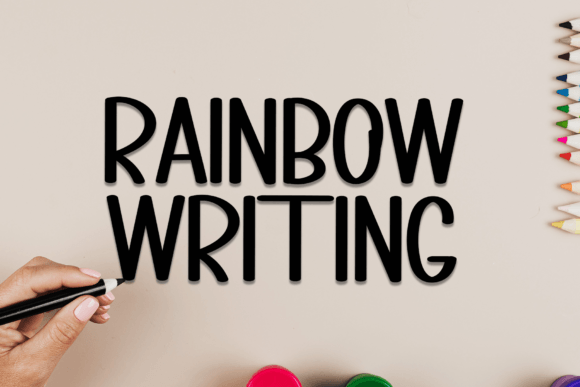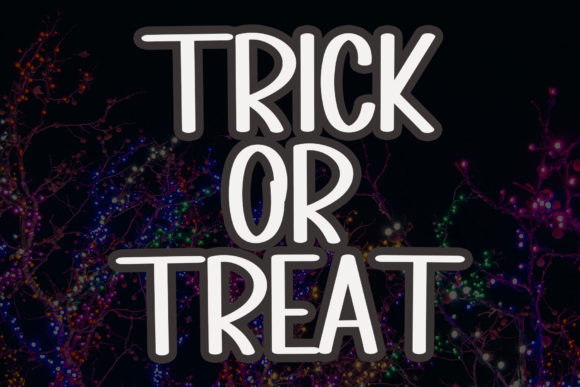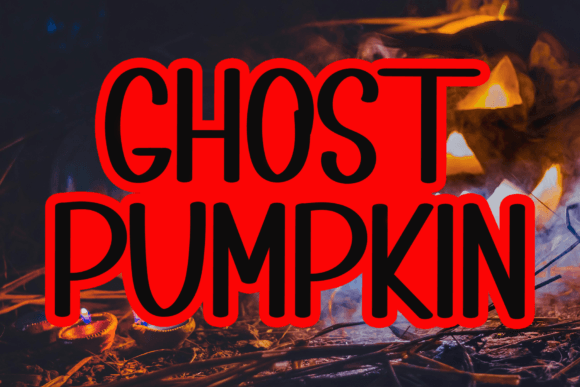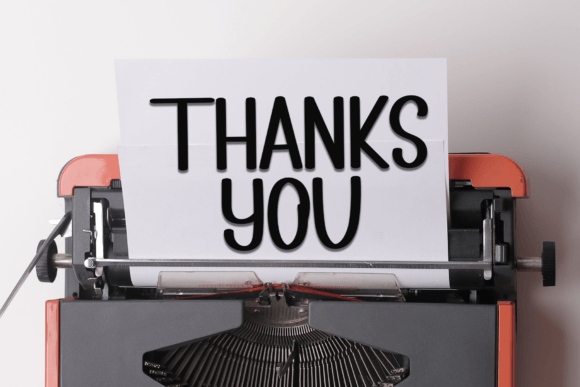
Discover the Warmth of Farmhouse Font
As a designer, have you ever found yourself pouring over a beautiful typography book, mesmerized by the rustic charm of a particular font? That’s exactly how I felt when I first laid eyes on the Farmhouse Font – a stunning, handcrafted typeface that instantly evokes feelings of coziness and warmth.
With its soft, elegant strokes and unique character, Farmhouse Font is a versatile font that can add a touch of personality to any design project. Whether you’re working on a handmade craft, a wedding invitation, or a branding campaign, this font is sure to bring a sense of authenticity and charm to your work.
Farmhouse Font Key Features
- Font Style: A rustic, handwritten font with a vintage feel, suitable for headings and titles.
- Unique Characteristics: Distinctive handwritten strokes, irregular letterforms, and subtle texture, giving it a unique and authentic feel.
Farmhouse Font Review
I recently had the chance to work with the Farmhouse Font, and I have to say, it’s a unique and charming addition to any design project. ✨
- Distinctive Character: The Farmhouse Font has a distinctive, hand-painted feel that sets it apart from more traditional fonts.
- Whimsical Touch: It adds a whimsical touch to any design, making it perfect for rustic or country-themed projects.
- Readability: While the font is charming, it can be difficult to read at smaller font sizes, especially in body text.
- Limited Unicode Support: The font doesn’t support as many languages as I’d like, which can be a limitation for projects that require multilingual support.
- Not Suitable for Body Text: Due to its decorative nature, the font isn’t ideal for large blocks of body text.
Overall, I think the Farmhouse Font is a great addition to any designer’s toolkit. It’s perfect for projects that require a unique, whimsical touch. Just be sure to use it judiciously, as its limitations may make it unsuitable for larger text blocks or multilingual projects. ⚠️
Tips for Getting the Most Out of Farmhouse Font
Here are some tips to help you get the most out of Farmhouse Font:
- Use it for rustic or vintage-themed designs.
- Pair it with distressed textures or watercolor effects for added depth.
Farmhouse Font is perfect for:
- Rustic wedding invitations or decor.
- Home decor or furniture design.
- Vintage-inspired advertisements or marketing materials.
Alternatives to Farmhouse Font
Bodoni is a classic serif font known for its elegant and sophisticated look. It’s ideal for use in high-end branding, luxury packaging, and formal invitations. Compared to Farmhouse Font, Bodoni has a more refined and polished appearance, making it suitable for projects that require a touch of sophistication.
Playfair Display is a luxurious and elegant script font that’s perfect for creating a sense of drama and sophistication. It’s ideal for use in high-end branding, fashion magazines, and luxury packaging. Compared to Farmhouse Font, Playfair Display has a more ornate and luxurious feel, making it suitable for projects that require a touch of opulence.
Great Vibes is a modern and elegant script font that’s perfect for creating a sense of relaxation and sophistication. It’s ideal for use in wellness branding, travel magazines, and lifestyle packaging. Compared to Farmhouse Font, Great Vibes has a more casual and approachable feel, making it suitable for projects that require a touch of laid-back elegance.